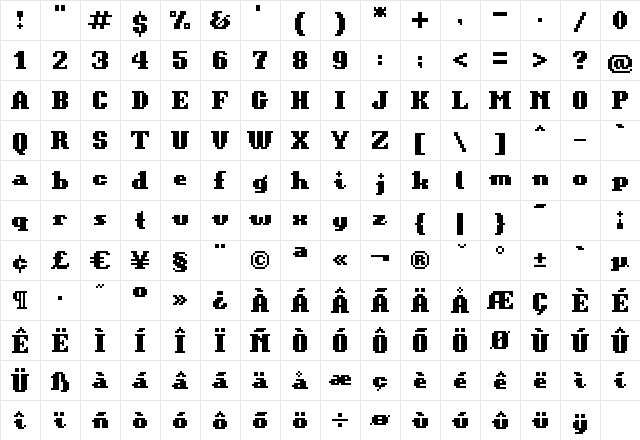
Bit KitInformal Regular
Design Context for Bit KitInformal Typeface
Bit KitInformal is a composed and adaptable typeface that performs quietly and consistently across a wide range of design contexts.